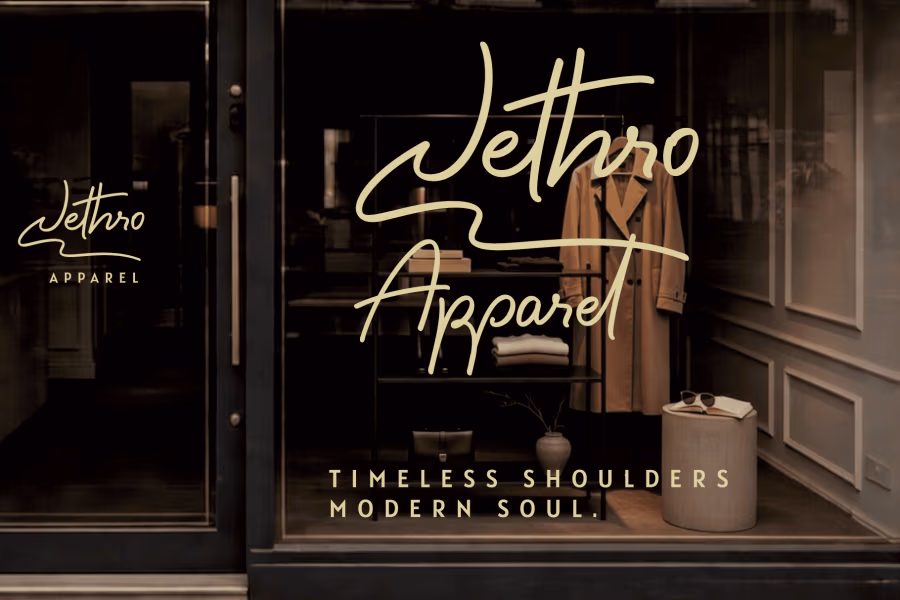
Boundless Wing Handwritten Font
Boundless Wing Handwritten Font Crafted by Letterhanna Studio, this handwritten script font features abundant ligatures for seamless connections, beginning/ending swashes that frame your text dramatically, and a library of stylistic alternates plus ornaments for endless customization. It’s designed to feel handwritten yet remain strikingly readable—ideal for bold headlines, social media graphics, or editorial designs. Break free from ordinary typography. Discover Boundless Wing now
✨Enjoy every special letter variation, flowing swashes, ornaments, and underlines simply by typing normal characters! Everything activates naturally through the font’s built-in ligatures—no complicated menus required.